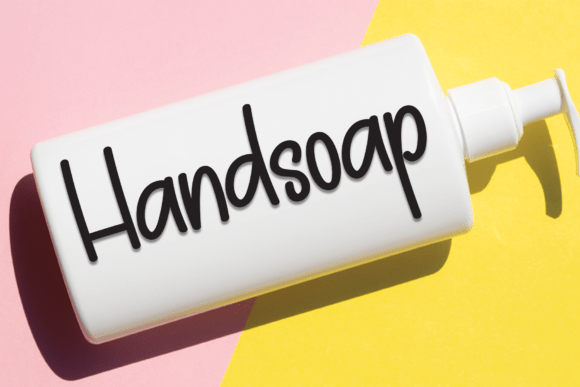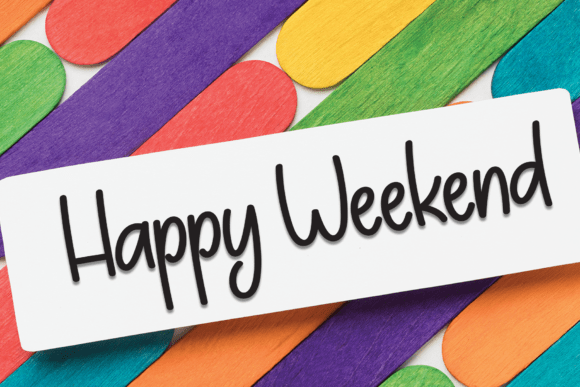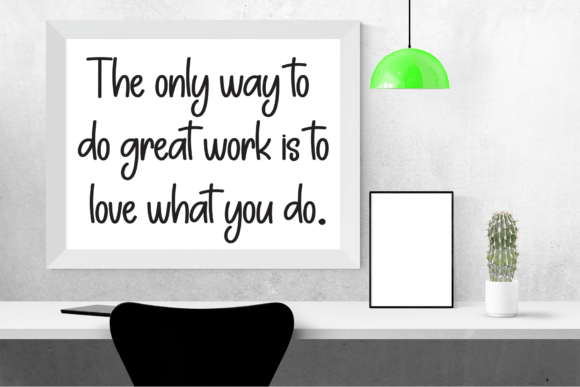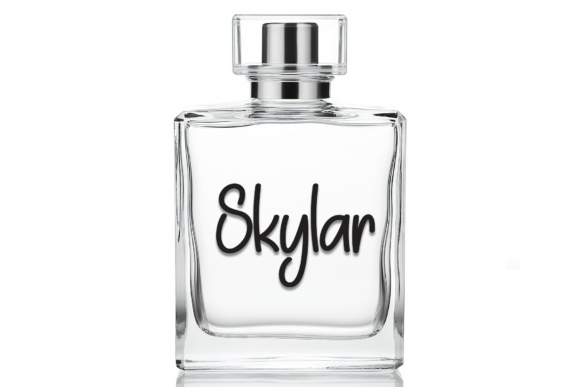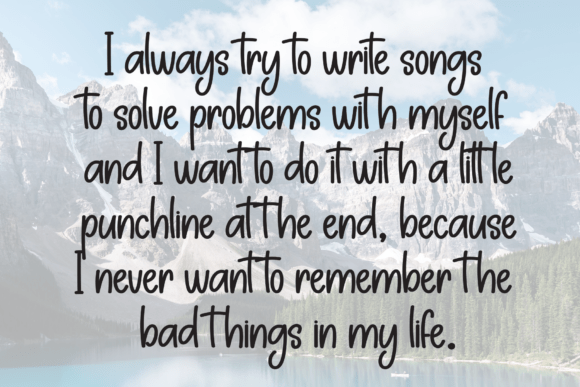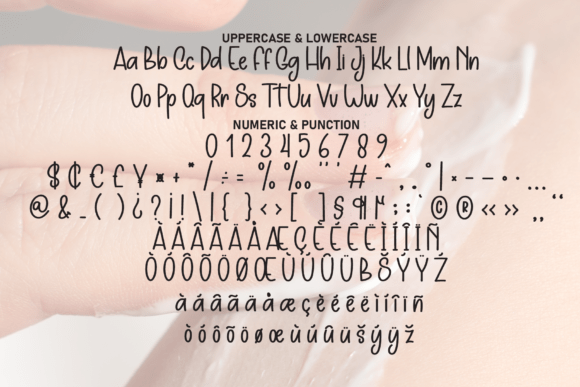
Introducing Body Lotion Font: The Perfect Blend of Freshness and Friendliness
Are you a designer or crafter looking for a font that embodies a fresh, friendly vibe? Look no further than Body Lotion Font! This casual and neat display font is designed to add a touch of charm and clarity to your projects, making it perfect for packaging, posters, social media graphics, and more.
Clean Lines and Relaxed Structure
One of the standout features of Body Lotion Font is its clean lines and relaxed structure. The font’s design is characterized by a sense of simplicity and elegance, making it easy to read and visually appealing. The clean lines also give the font a sense of sophistication, making it suitable for a wide range of projects, from beauty and skincare packaging to social media graphics and posters.
Perfect for Packaging, Posters, and Social Media Graphics
Body Lotion Font is a versatile font that can be used in a variety of contexts. Its friendly and approachable design makes it perfect for packaging, especially for beauty and skincare brands looking to convey a sense of freshness and friendliness. The font is also great for posters, adding a touch of charm and clarity to your message. Additionally, Body Lotion Font is optimized for social media graphics, making it easy to create eye-catching and engaging content for your audience.
Approachable Design with Charm and Clarity
The approachable design of Body Lotion Font is one of its most distinctive features. The font’s friendly and relaxed vibe makes it perfect for brands looking to convey a sense of approachability and warmth. At the same time, the font’s clean lines and structured design ensure that it remains clear and easy to read, even at smaller sizes. This makes Body Lotion Font an excellent choice for designers and crafters looking to add a touch of personality to their projects without sacrificing legibility.
Polished Appearance
Despite its casual and relaxed vibe, Body Lotion Font has a surprisingly polished appearance. The font’s clean lines and structured design give it a sense of sophistication, making it suitable for high-end brands and projects. At the same time, the font’s friendly and approachable design ensures that it remains approachable and engaging, making it perfect for brands looking to connect with their audience.
Why Choose Body Lotion Font?
So why choose Body Lotion Font for your next project? Here are just a few reasons:
• Fresh and Friendly Vibe: Body Lotion Font embodies a fresh, friendly vibe that’s perfect for brands looking to convey a sense of approachability and warmth.
• Clean Lines and Relaxed Structure: The font’s clean lines and relaxed structure make it easy to read and visually appealing.
• Versatile: Body Lotion Font is a versatile font that can be used in a wide range of contexts, from packaging to social media graphics.
• Polished Appearance: Despite its casual vibe, Body Lotion Font has a surprisingly polished appearance that makes it suitable for high-end brands and projects.
In conclusion, Body Lotion Font is a fantastic choice for designers and crafters looking for a font that embodies a fresh, friendly vibe. With its clean lines, relaxed structure, and approachable design, this font is perfect for packaging, posters, social media graphics, and more. Whether you’re working on a beauty and skincare project or simply looking for a font that adds a touch of charm and clarity to your message, Body Lotion Font is an excellent choice.